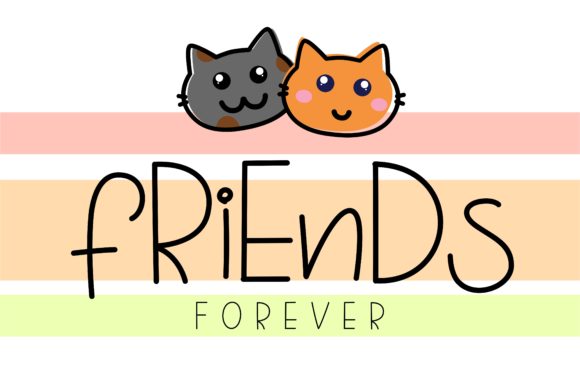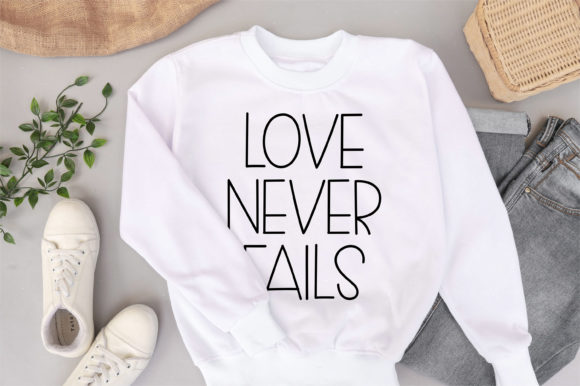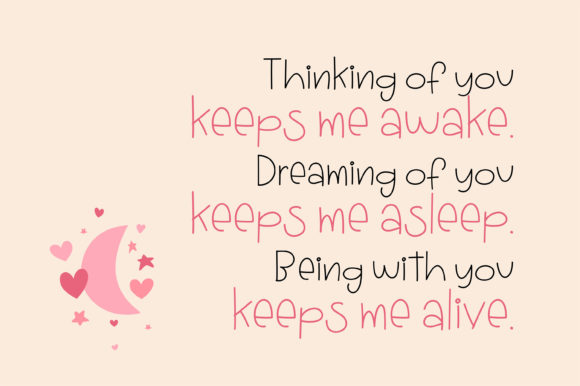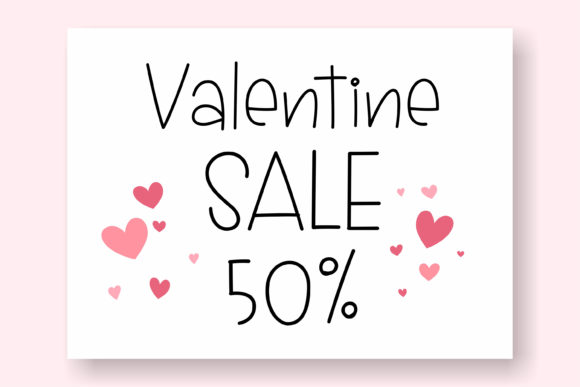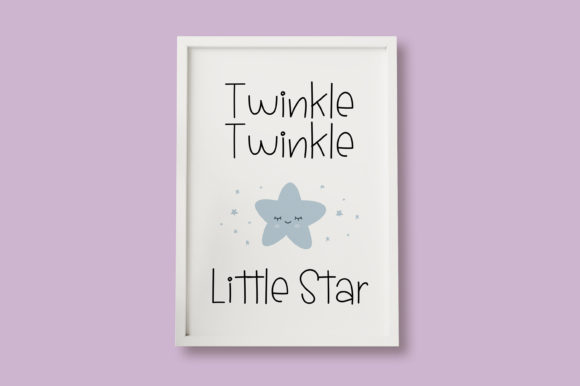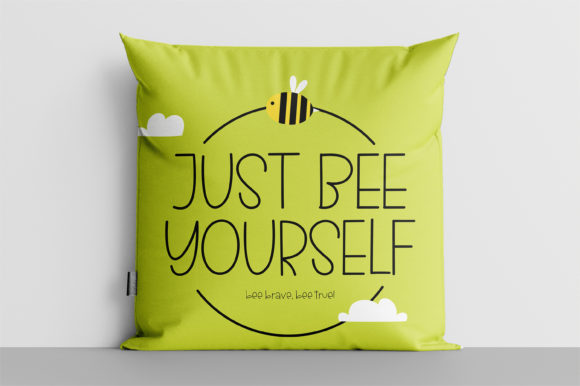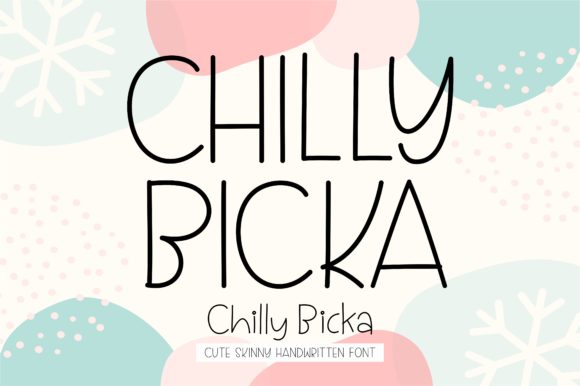
Introducing Chilly Bicka Font: The Perfect Addition to Your Design Arsenal
Are you tired of using the same old fonts in your designs? Look no further! Chilly Bicka Font is here to add a touch of sweetness and playfulness to your creations. This adorable, round-lettered, and light handwritten font is perfect for designers and crafters looking to brighten up their designs and make them stand out.
What Makes Chilly Bicka Font So Special?
Chilly Bicka Font is a cute and charming font that exudes a carefree and lively vibe. Its sweet and full-of-life style makes it an excellent choice for a wide range of design projects, from kids’ party invitations and baby shower announcements to branding and advertising materials. The font’s playful and whimsical feel is sure to capture the attention of your audience and leave a lasting impression.
Key Features of Chilly Bicka Font
- Cute and Round-Letered: Chilly Bicka Font features round and adorable letters that are sure to bring a smile to your face. The font’s rounded edges and curves give it a friendly and approachable feel that’s perfect for designs that require a personal touch.
- Light Handwritten Style: The font’s light handwritten style gives it a soft and airy feel that’s perfect for creating designs that are both elegant and playful. The subtle imperfections and variations in the lettering add to the font’s charm and make it look like it was written by hand.
- Versatile: Chilly Bicka Font is incredibly versatile and can be used for a wide range of design projects, from digital designs to print materials. Whether you’re creating a logo, brochure, or social media graphic, this font is sure to make your design stand out.
Why Choose Chilly Bicka Font?
So, why choose Chilly Bicka Font over other fonts? Here are just a few reasons:
- Unique and Eye-Catching: Chilly Bicka Font is a unique and eye-catching font that’s sure to grab the attention of your audience. Its playful and whimsical feel makes it perfect for designs that require a bit of personality.
- Easy to Read: Despite its playful feel, Chilly Bicka Font is incredibly easy to read, making it perfect for designs that require a clear and concise message.
- Perfect for Kids and Adults Alike: The font’s sweet and playful feel makes it perfect for designs aimed at kids and adults alike. Whether you’re creating a design for a kids’ party or a branding campaign, Chilly Bicka Font is sure to delight.
How to Use Chilly Bicka Font in Your Designs
Using Chilly Bicka Font in your designs is incredibly easy. Here are a few tips to get you started:
- Pair it with Bold Fonts: Pair Chilly Bicka Font with bold fonts to create a striking contrast that grabs attention.
- Use it for Headings and Titles: Use Chilly Bicka Font for headings and titles to add a touch of personality to your designs.
- Experiment with Colors: Experiment with different colors to find the perfect combination that brings out the font’s playful feel.
In conclusion, Chilly Bicka Font is a charming and playful font that’s perfect for designers and crafters looking to add a touch of personality to their designs. Its sweet and full-of-life style makes it an excellent choice for a wide range of design projects, from kids’ party invitations to branding and advertising materials. With its unique and eye-catching feel, ease of use, and versatility, Chilly Bicka Font is sure to become a staple in your design arsenal.